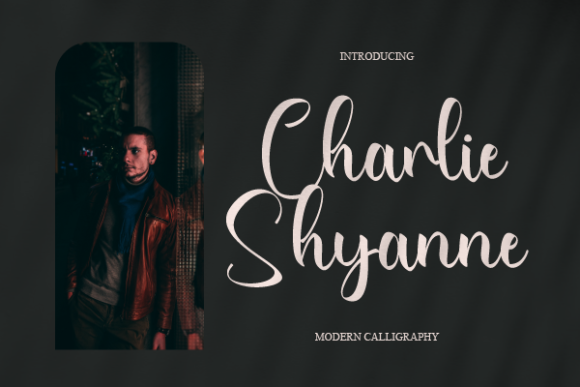
Unleash Your Creativity with the Elegant Charlie Shyanne Font
Have you ever stared at a blank canvas, feeling like a spark is missing to bring your design to life? You’re not alone. Sometimes, all it takes is the right font to elevate your ideas and make them truly shine. That’s where the Charlie Shyanne Font comes in – a delicate, elegant, and flowing handwritten font that will add a touch of sophistication to any design.
This beautiful font is more than just a pretty face; it’s a versatile tool that can complement a wide range of creative projects. With its well-balanced characters, the Charlie Shyanne Font is a valuable asset for designers looking to add a personal touch to their work. Whether you’re a graphic designer, writer, or artist, this font is sure to bring your ideas to life in a way that’s both beautiful and effective.
Charlie Shyanne Font Key Features
- Font Family: Charlie Shyanne is a script font.
- Unique Characteristics: Features elegant, handwritten, and cursive styles with swashes, flourishes, and connecting strokes, making it ideal for creative and artistic projects.
Charlie Shyanne Font Review
I recently had the chance to work with the Charlie Shyanne font, and I have to say, it’s an interesting choice. ✨ The first thing that caught my eye was the unique blend of modern and vintage elements. The font’s rounded edges and subtle curves give it a soft, feminine feel, while the bold lines and geometric shapes add a touch of edginess. ✨ The result is a font that’s perfect for projects that need a bit of whimsy and sophistication.
One of the things I appreciate about the Charlie Shyanne font is its versatility. ✨ It works well for a variety of applications, from body text to headings, and can be easily paired with other fonts to create a unique look. ✨ I also appreciate the font’s wide range of weights, which makes it easy to create contrast and visual interest in your design.
- ⚠️ Limited support for non-English languages, which may limit its use in international projects.
- ⚠️ Some users may find the font’s rounded edges and curves too playful or cutesy for certain applications.
- ⚠️ The font’s geometric shapes can be a bit busy or overwhelming in large blocks of text.
Overall, the Charlie Shyanne font is a solid choice for designers looking for a unique and versatile font. While it may not be perfect for every project, it’s a great option for those who want to add a bit of personality and whimsy to their designs.
For best results, use the Charlie Shyanne font for titles and headings to create a professional and elegant look.
For best results, use the Charlie Shyanne font for titles, headings, and body text to create a cohesive and polished design.
For best results, use the Charlie Shyanne font for titles, headings, and body text to create a professional and elegant look.
The Charlie Shyanne font is suitable for a variety of applications, including:
- Brand logos and marketing materials
- Business cards and resumes
- Editorial and publishing projects
Alternatives to Charlie Shyanne Font
Great Vibes is a modern, elegant script font perfect for creating a sense of sophistication and luxury. It’s ideal for use in branding, advertising, and editorial design. Great Vibes has a more refined and polished feel compared to Charlie Shyanne, making it a better choice for high-end projects.
Lobster is a fun, playful font that’s perfect for adding a touch of whimsy to your designs. It’s great for use in social media graphics, blog posts, and other casual content. While Charlie Shyanne has a more elegant feel, Lobster is better suited for projects that require a lighthearted and approachable tone.
Pacifico is a beautiful, beach-inspired script font that’s perfect for creating a sense of relaxation and calm. It’s ideal for use in travel and hospitality branding, as well as for creating a sense of serenity in editorial design. Pacifico has a more laid-back feel compared to Charlie Shyanne, making it a better choice for projects that require a sense of tranquility.